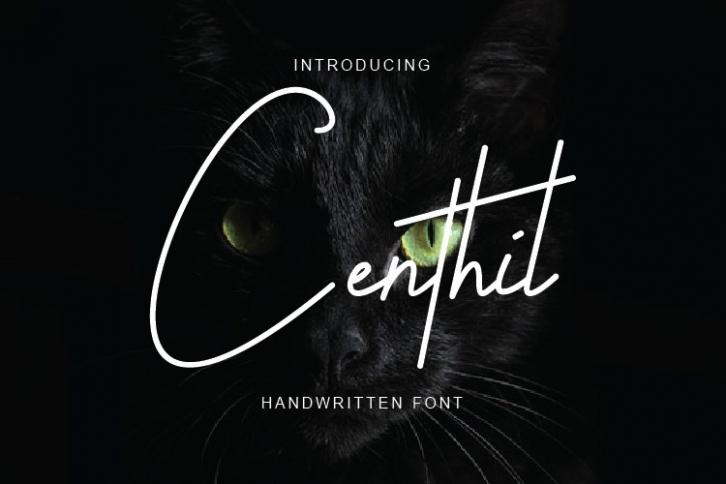
Centhil s is a great font that was designed by Febri Creative. Imagine the amount of combinations you can create using this font! The archive is 6.78 MB and it was released on May 15, 2019. Centhil s looks beautiful on wedding invitations, greeting cards, logos, posters, labels, t-shirt designs, logos, business cards and is perfect for use in ink or watercolor works, fashion, magazines, packaging and food menus, children's books and more!